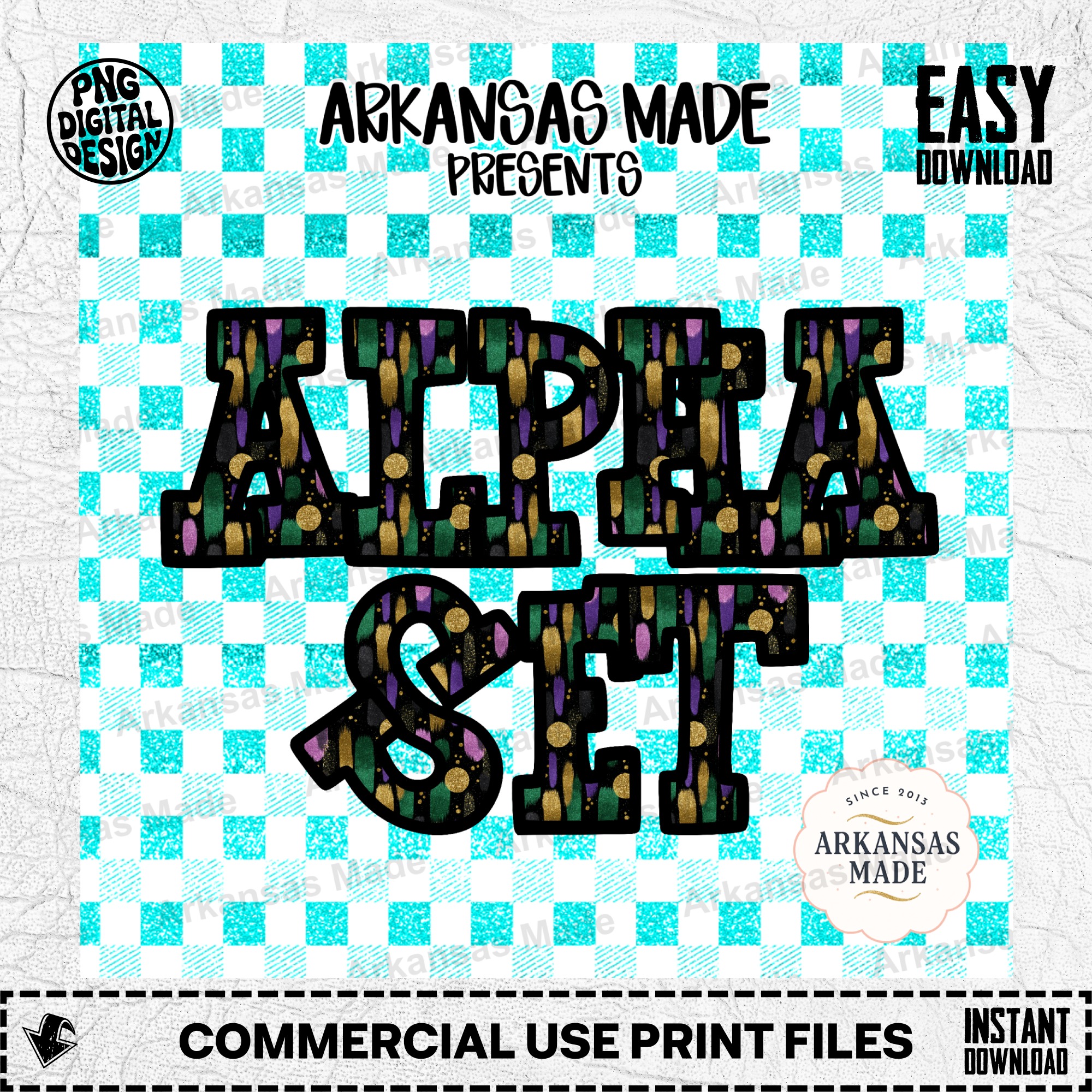
Mardi Gras Alpha Set PNGs, Purple Green Gold Glitter Alphabet, Brush Stroke Font, Digital Download, Festive Letters for Sublimation
Unleash your creativity with this vibrant Mardi Gras Alpha Set PNGs, featuring stunning purple, green, and faux gold glitter brush strokes for all your festive designs. This eye-catching digital alphabet offers a bold, celebratory aesthetic perfect for crafters, small business owners, and DIY enthusiasts. Ideal for sublimation on t-shirts, tumblers, and party decorations, or creating unique personalized gifts. Celebrate Carnival season or any special occasion with these versatile, high-quality letter designs.